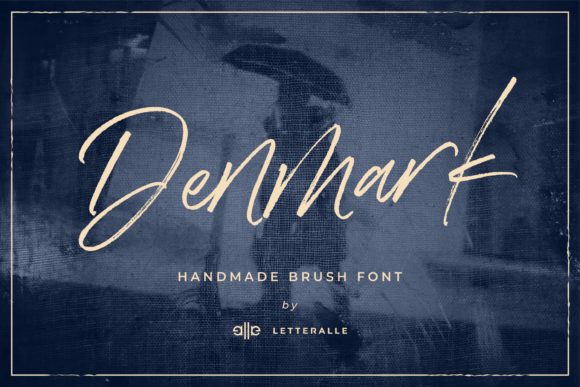
Unleash the Elegance: Denmark Font - Where Beauty Meets Originality
Prepare to be captivated by Denmark Font, a bold and utterly captivating script that will add a dash of creative brilliance to your design projects. Crafted by the visionary Balpirick, Denmark Font is no ordinary script; it's a masterpiece that exudes elegance and originality like no other. Step into a world of visual allure where your words dance with grace and style.
With its unique take on lettering, Denmark Font isn't just a font; it's an art form. Its bold strokes and enchanting curves create a visual symphony that captivates the senses. Whether you're designing logos, branding materials, or social media graphics, Denmark Font will elevate your designs to new heights.
Imagine your designs adorned with Denmark Font's captivating characters, drawing attention and admiration wherever they go. Its timeless charm will make your creations stand out from the crowd, leaving an indelible mark on your audience.
But the beauty of Denmark Font goes beyond its aesthetic appeal. Its versatility knows no bounds. With its ability to effortlessly blend with a wide range of design styles, Denmark Font becomes a chameleon of creativity in your hands. Use it to add a touch of sophistication to classic designs or infuse a contemporary edge into modern projects - the possibilities are endless.